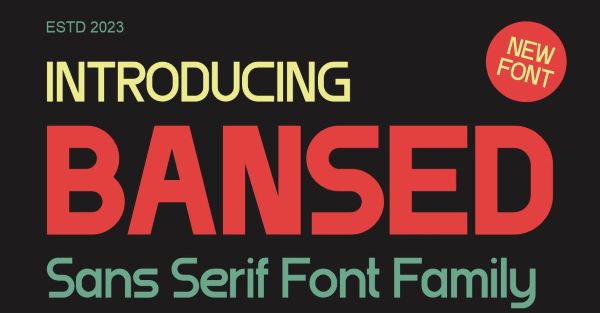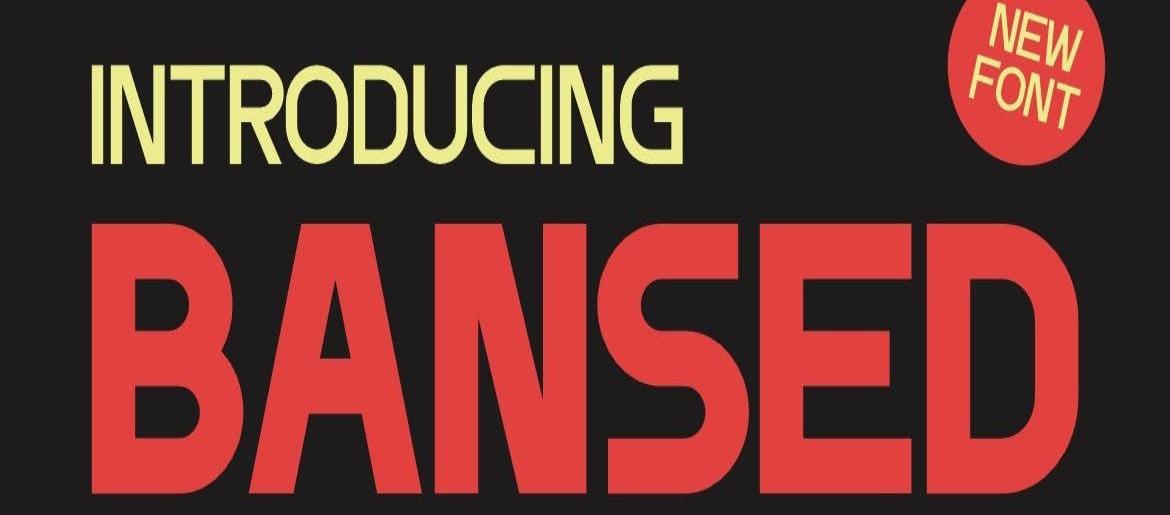
Bansed Font
Bansed by Kendra Orozco is a clean, versatile sans-serif font family built for modern graphic design and contemporary text display. Its various styles give designers genuine flexibility — from bold headlines and logo work to refined body-adjacent display use — while maintaining a consistent, approachable personality across the full range. With uppercase, lowercase, and multilingual character support in both OTF and TTF formats, Bansed arrives as a practical, well-rounded toolkit for branding, editorial, and digital design. Free for personal use.
Bansed is a flexible modern sans-serif family in our free font collection, from the US-based designer Kendra Orozco — a typeface built to adapt cleanly across the widest variety of contemporary design contexts without ever looking out of place. Versatile, legible, and genuinely useful. Browse our full library of free fonts and discover more distinctive typefaces crafted by independent designers around the world.